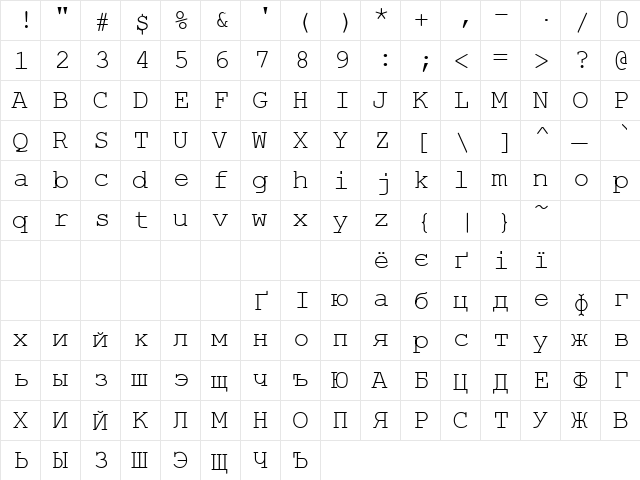
ER Kurier KOI-8 Normal
Design Context for ER Kurier KOI-8 Typeface
ER Kurier KOI-8 is a composed and adaptable typeface that performs quietly and consistently across a wide range of design contexts.